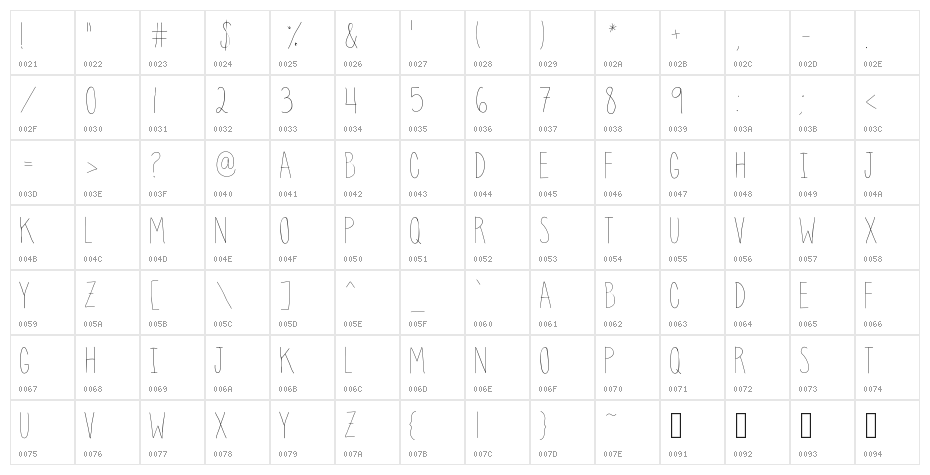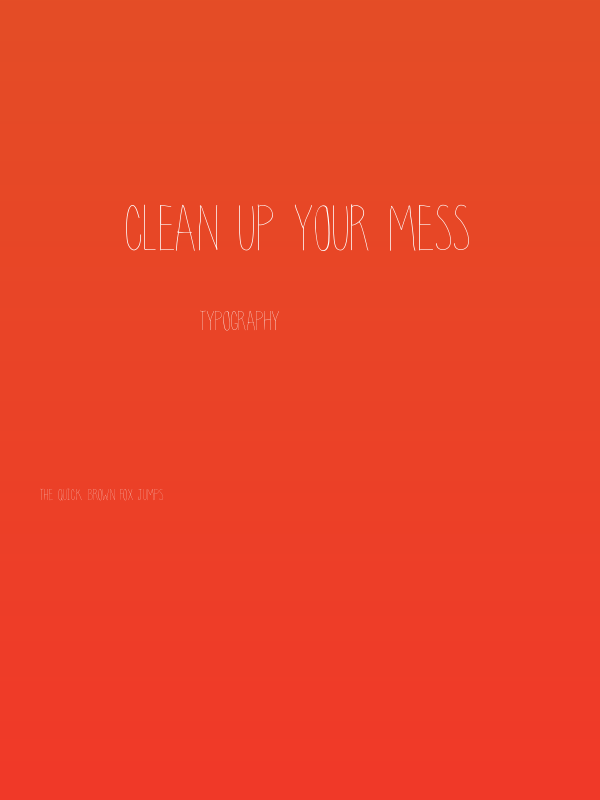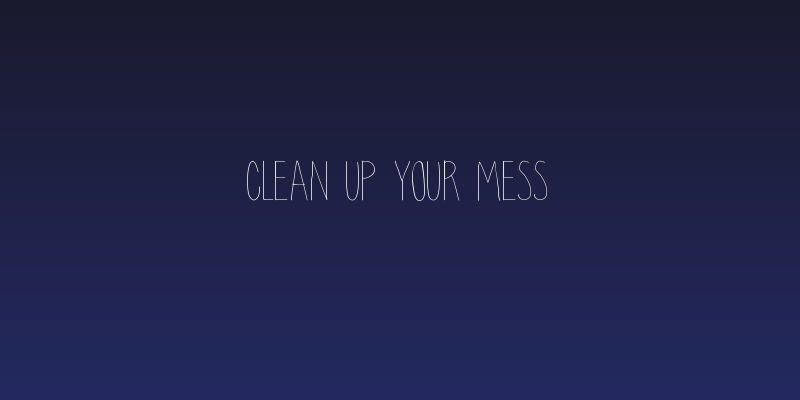
clean up your mess Font
clean up your mess Description
This font features a playful and whimsical handwritten style, characterized by its tall, narrow letters and slightly irregular lines. The strokes are thin and consistent, giving it a light and airy appearance. The uppercase and lowercase letters maintain a uniform height, contributing to a cohesive and harmonious look. The numbers and special characters follow the same design principles, ensuring a seamless integration with the alphabet. This font exudes a casual and friendly vibe, making it suitable for projects that require a personal touch.
| Proposed Projects | Ideal for greeting cards, children's books, personal blogs, and casual branding. |